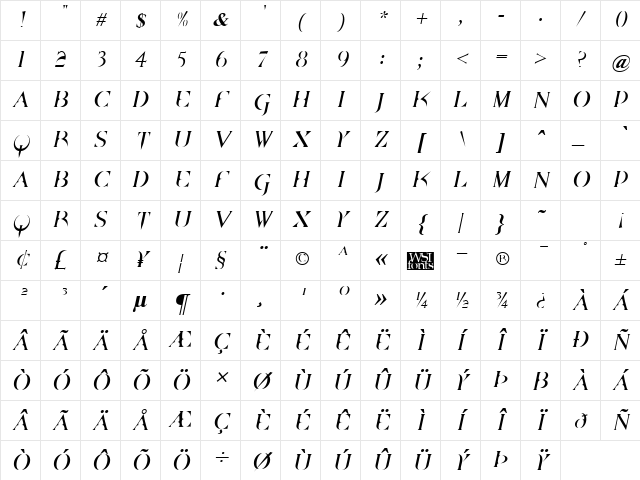
Brazelton Italic
Design Context for Brazelton
Brazelton is a composed and adaptable typeface that performs quietly and consistently across a wide range of design contexts. The slanted form adds forward momentum and visual energy.